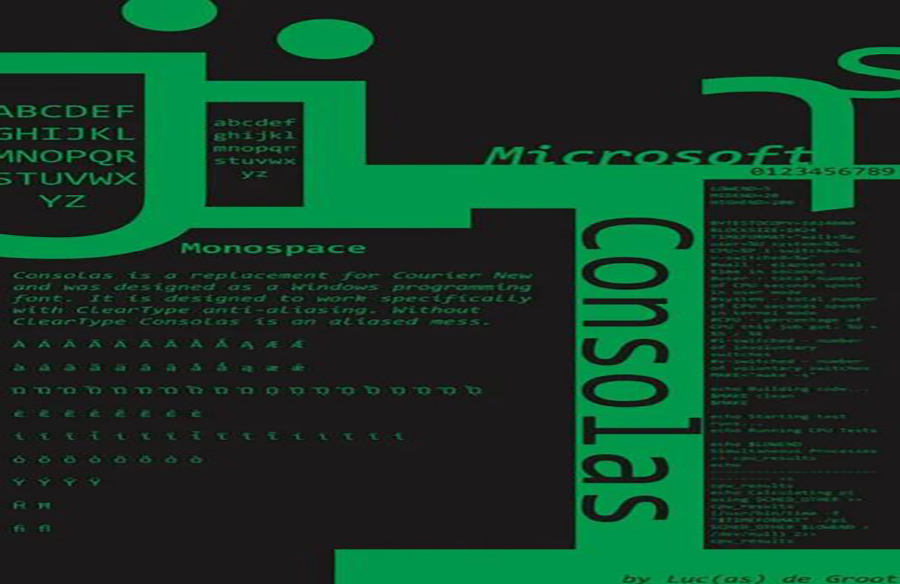
Consolas Font – Fonts for Architects
In the dynamic world of graphic design and architecture, every detail matters when conveying a message or showcasing a project. One often overlooked yet crucial aspect is the choice of fonts. Fonts play a significant role in conveying the tone, personality, and professionalism of a design. Among the myriad of options available, Consolas font stands out as a versatile and aesthetically pleasing choice, particularly for architects looking to enhance their portfolio presentations.
Understanding Consolas Font: A Typographical Marvel
Consolas font, designed by Lucas de Groot, is a monospaced typeface that has gained prominence for its clean lines, modern aesthetic, and exceptional readability. Originally developed for programming environments, Consolas has transcended its initial purpose and found a comfortable spot in various design applications, including architecture.
The Unique Characteristics of Consolas Font
Consolas font boasts several distinctive features that contribute to its popularity:
- Monospaced Design: Each character in Consolas takes up the same horizontal space, creating a structured and orderly appearance. This characteristic enhances readability and aligns well with the precision required in architectural presentations.
- Geometric Precision: Consolas embraces a geometric design with carefully balanced proportions, making it visually appealing and suitable for conveying a sense of professionalism.
- Clear Distinction: The font’s clarity is further enhanced by distinct characters, making it easy to differentiate between letters and numbers – a valuable asset when presenting technical information in architectural plans.
The Role of Typography in Architectural Portfolios
Typography is a powerful tool that architects can leverage to elevate their portfolio presentations. The choice of font communicates not only the content but also the designer’s intent and design philosophy. Consolas font, with its clean and modern appearance, offers architects a unique opportunity to make a lasting impression on their audience.
Creating a Professional Image
Consolas font’s professional and contemporary look aligns seamlessly with the modern aesthetics of architectural design. Implementing this font in portfolio materials instantly imparts a sense of precision and attention to detail, establishing the architect as a dedicated and meticulous professional.
Enhancing Readability of Technical Information
Architectural portfolios often contain intricate technical details, plans, and diagrams. Consolas font’s monospaced design ensures uniform spacing, making it easier for the audience to navigate through complex information. This enhances the overall readability of the portfolio and facilitates a more comprehensive understanding of the presented projects.
Infusing a Touch of Modernity
In an industry that thrives on innovation and contemporary design, Consolas font injects a touch of modernity into architectural portfolios. Its sleek lines and geometric precision resonate well with the clean and minimalist trends prevalent in today’s architectural landscape.
Examples of Consolas Font Implementation in Architectural Portfolios
To illustrate the impact of Consolas font in architectural portfolios, let’s examine a few real-world examples:
Example 1: Residential Design Portfolio
Architect A employs Consolas font in their residential design portfolio. The font’s clarity enhances the presentation of floor plans, elevations, and detailed annotations. The overall aesthetic aligns with the architect’s commitment to modern and functional residential spaces.
Example 2: Sustainable Architecture Showcase
Architect B, known for their focus on sustainability, incorporates Consolas font in their portfolio to convey a sense of order and precision in sustainable design. The font’s clean lines complement the eco-friendly ethos conveyed in the showcased projects.
How to Implement Consolas Font in Architectural Portfolios
-
Consistency is Key
Maintain consistency in font usage throughout the portfolio. Consolas can be utilized for headings, captions, and body text to create a cohesive and professional look.
-
Balance with Other Fonts
While Consolas is an excellent choice for technical information, consider balancing it with complementary fonts for project titles and introductory text. This ensures visual interest without compromising readability.
-
Pay Attention to Hierarchy
Utilize Consolas font to establish hierarchy within your portfolio. Use different weights or sizes to highlight key information, guiding the viewer’s attention through the presented content.
Conclusion: Elevating Architectural Narratives with Consolas Font
In the realm of graphic design and architecture, every element, including typography, plays a vital role in shaping the narrative. Consolas font, with its unique characteristics and versatility, offers architects a valuable tool to enhance the visual appeal and professionalism of their portfolios. By understanding the nuances of typography and strategically implementing Consolas, architects can elevate their designs and leave a lasting impression on clients, collaborators, and the wider architectural community.
Unlock the potential of Consolas font in your architectural presentations and witness the transformative power of typography in conveying your design story.